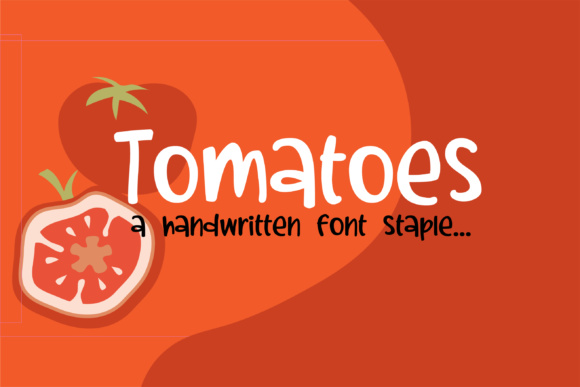
Ignite your creativity and embark on a typographic journey with Tomatoes Font, a captivating script font family crafted by Illustration Ink. Tomatoes is not just a font; it's an experience that transforms your designs into visually stunning masterpieces.
With its playful hand-written appearance, Tomatoes exudes a captivating charm that adds a touch of whimsy and authenticity to your projects. Its organic flow and natural curves mimic the beauty of handwritten notes, creating a sense of warmth and connection that resonates with your audience.
Dive into a world of endless possibilities with Tomatoes Font. Unleash your imagination and let your designs flourish with this versatile script font family. Perfect for logos, branding, wedding invitations, social media graphics, and more, Tomatoes has the power to captivate and inspire.
Immerse yourself in the world of Tomatoes Font and discover the true essence of creativity. Its unique character and undeniable charm will leave a lasting impression on your audience, making your designs truly unforgettable.
Embrace the Tomatoes Font experience today and unlock a new level of typographic excellence. Let your creativity flourish and your designs shine brighter than ever before.
- Delightful script font exuding a handwritten charm
- Perfect for adding a personal touch to your designs
- Versatile font family suitable for various projects
- Capture attention with its unique and captivating appearance
- Create designs that resonate with your audience
- Elevate your projects with a touch of sophistication and style
Add Tomatoes Font to your collection today and embark on a creative adventure like never before. Experience the beauty of hand-written typography and let your designs flourish with Tomatoes Font. Unleash your imagination and transform your projects into captivating masterpieces that leave a lasting impression.